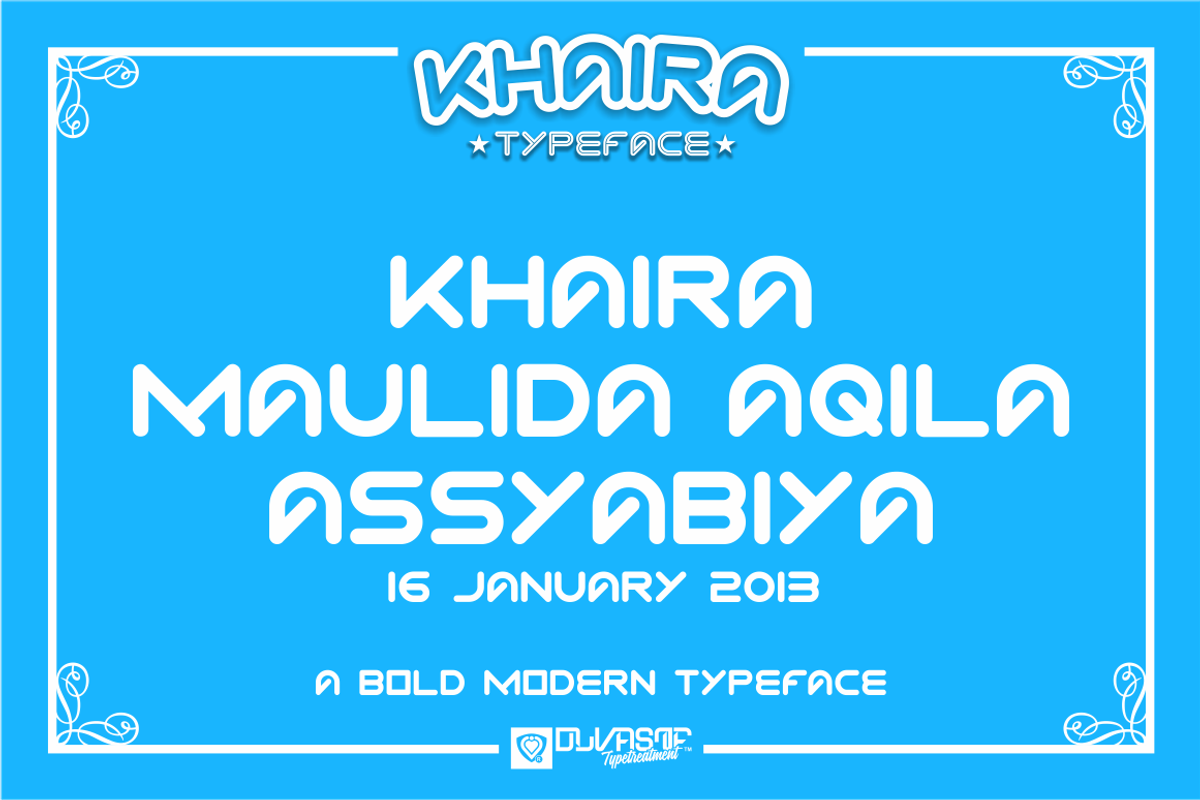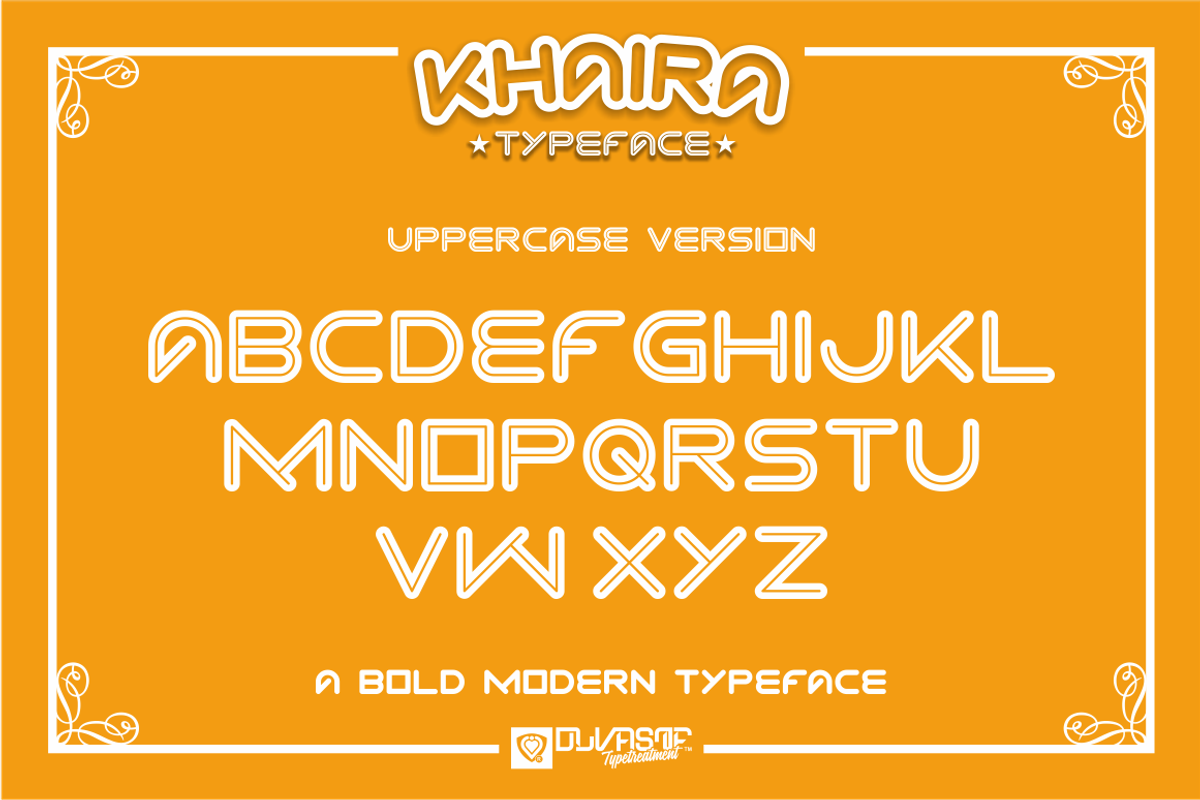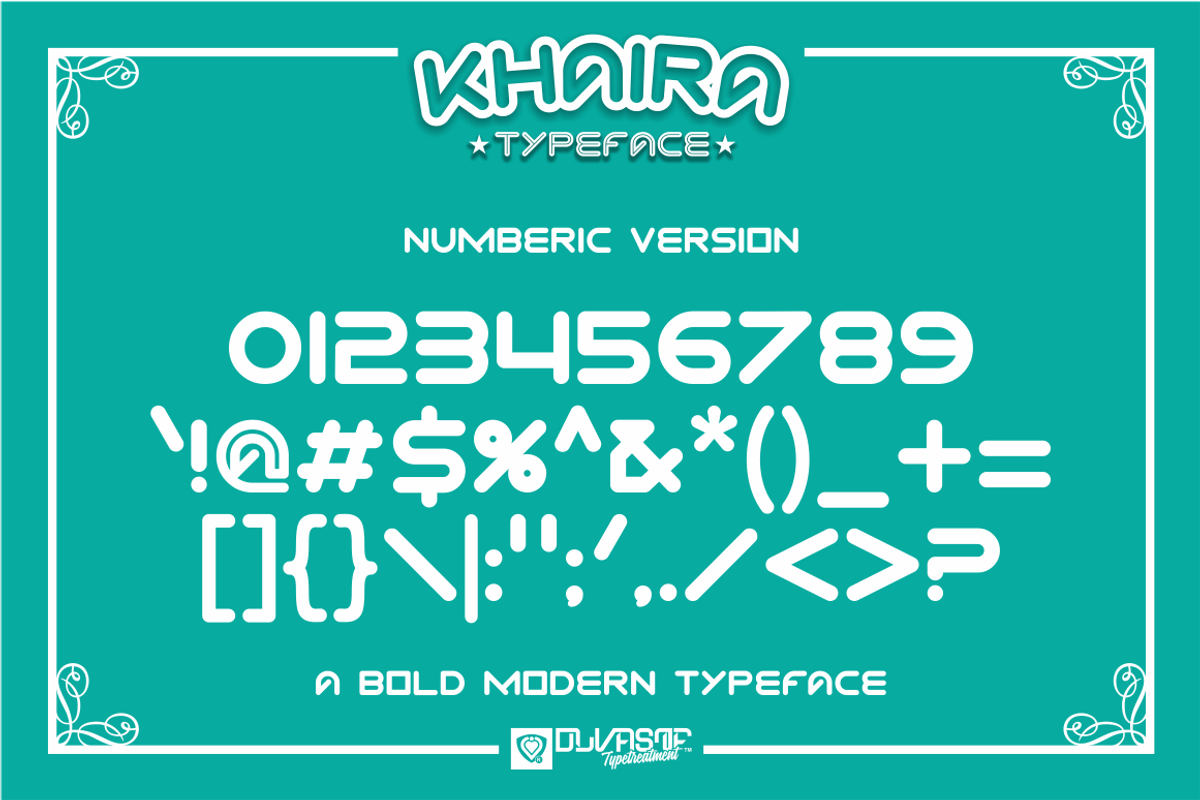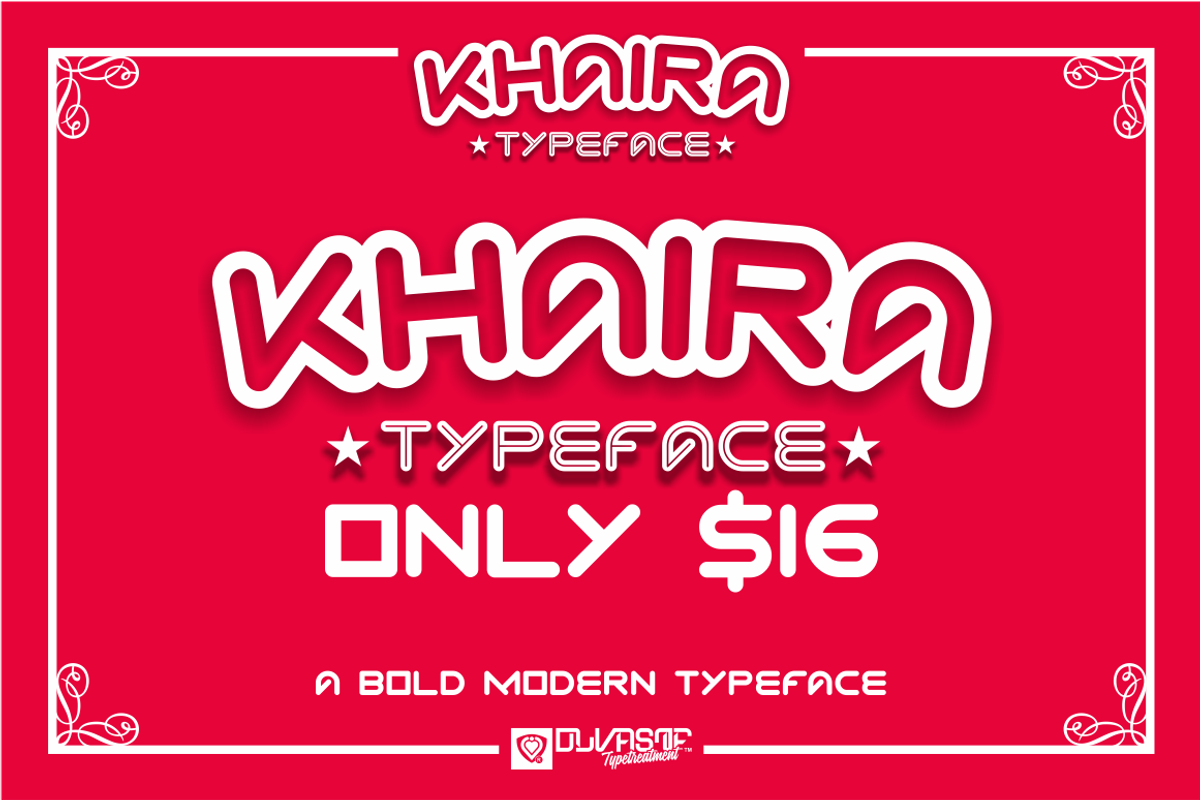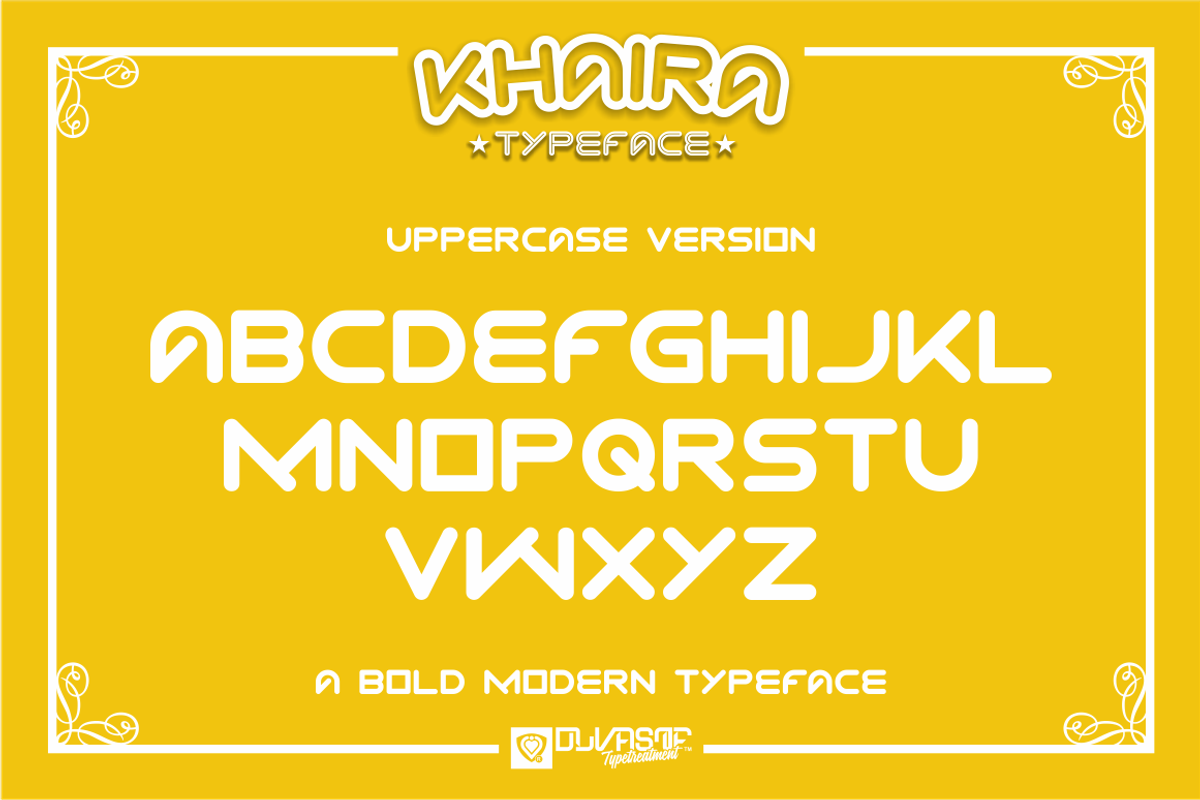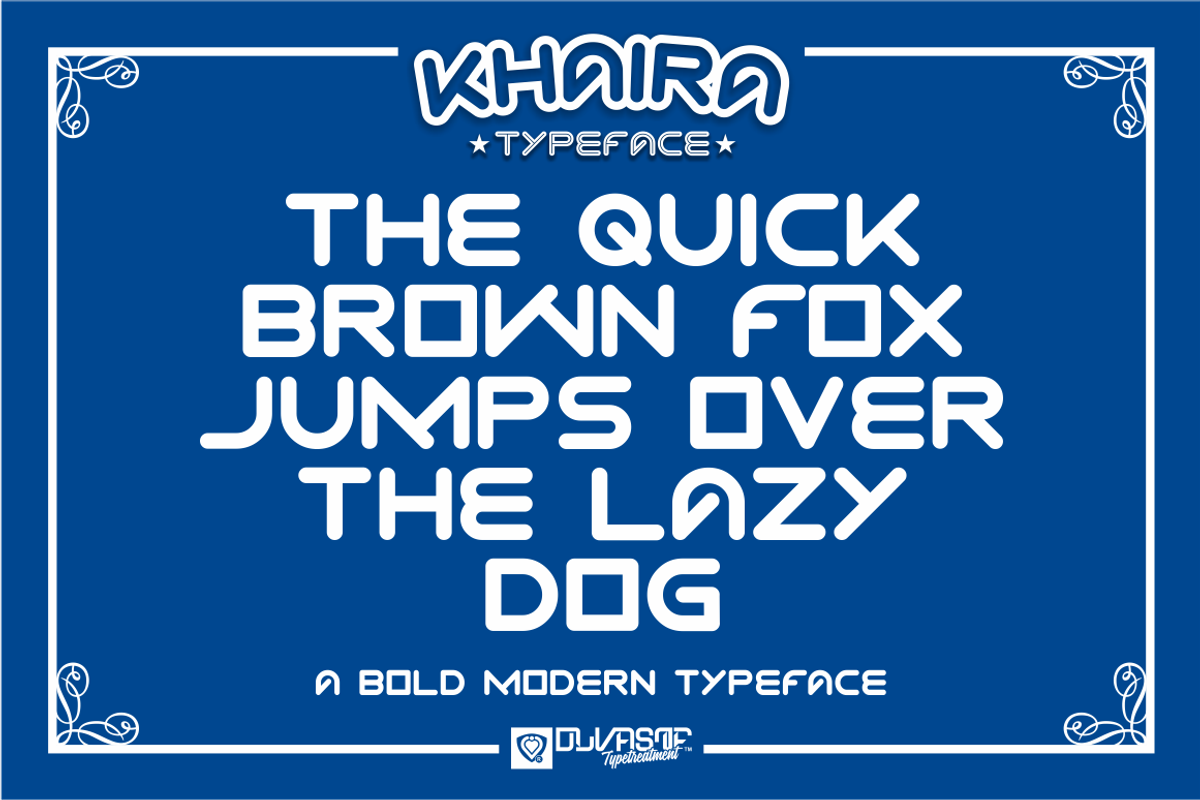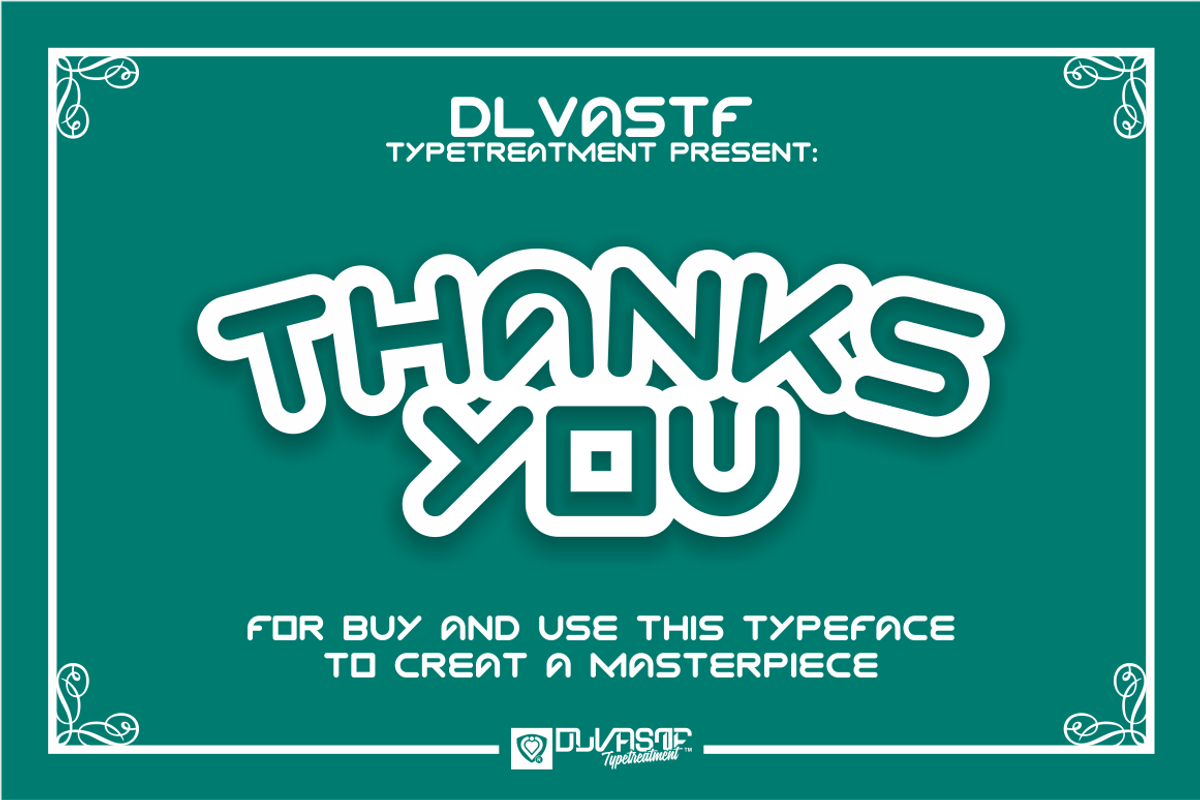
KHAIRA Typeface
KHAIRA Typeface by DLVASTF Typesupply Co. is a font selected for branding, posters, packaging, typography.
KHAIRA Typeface by DLVASTF Typesupply Co. fits naturally into Branding, posters, packaging, typography.